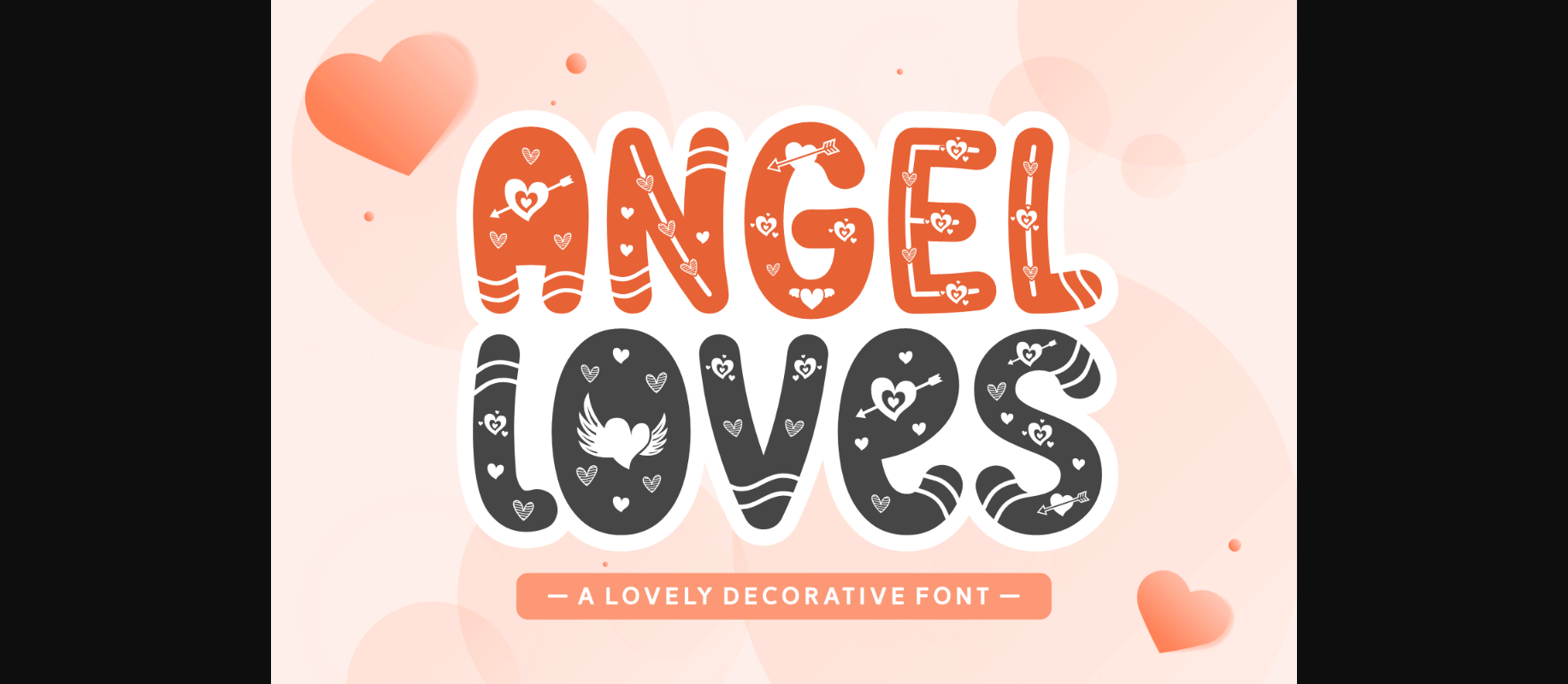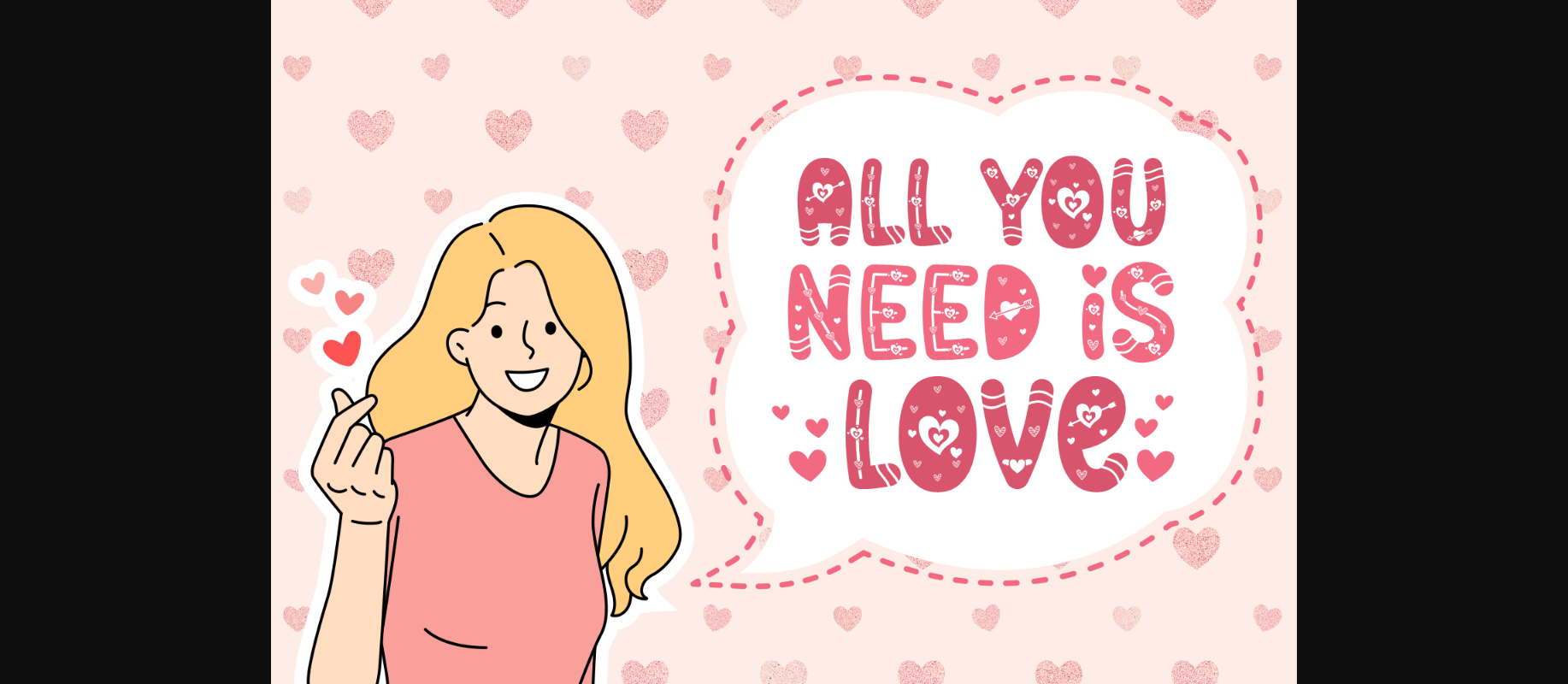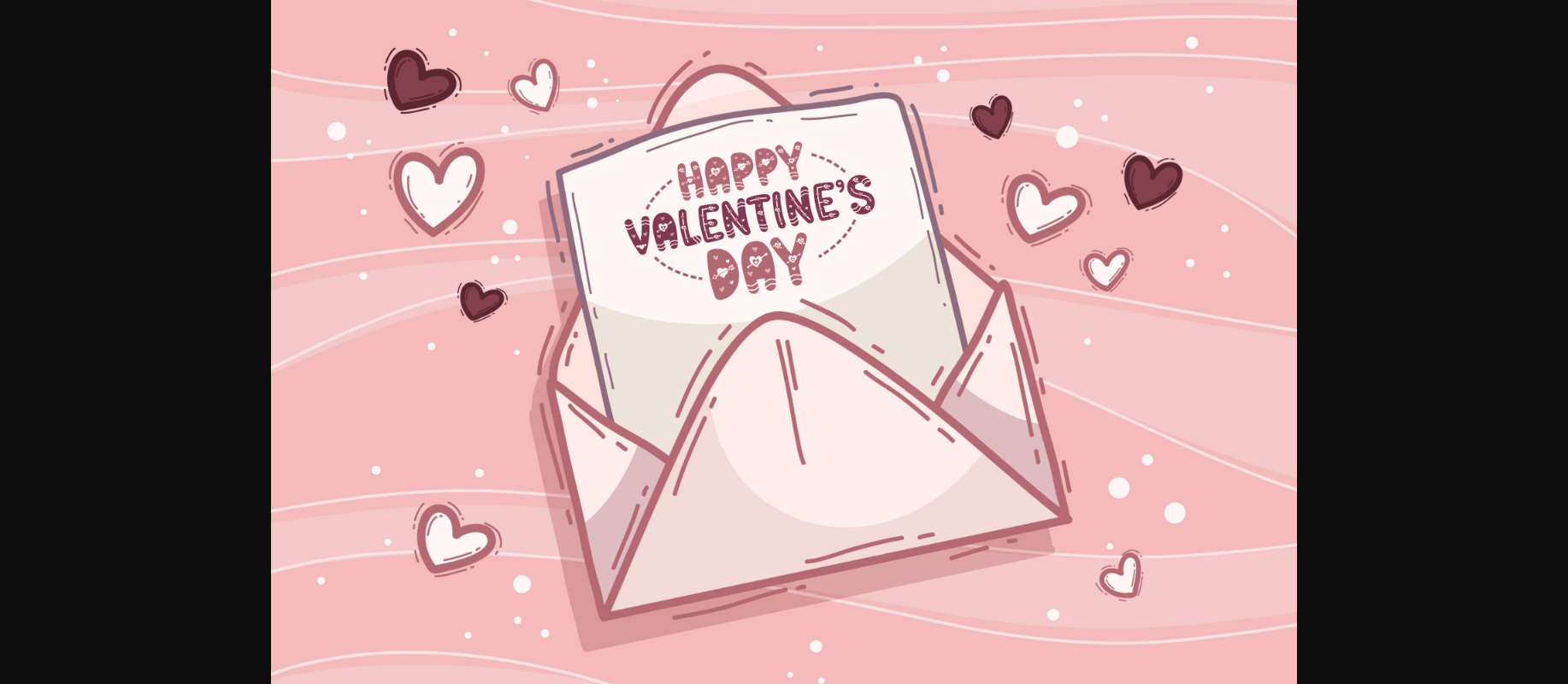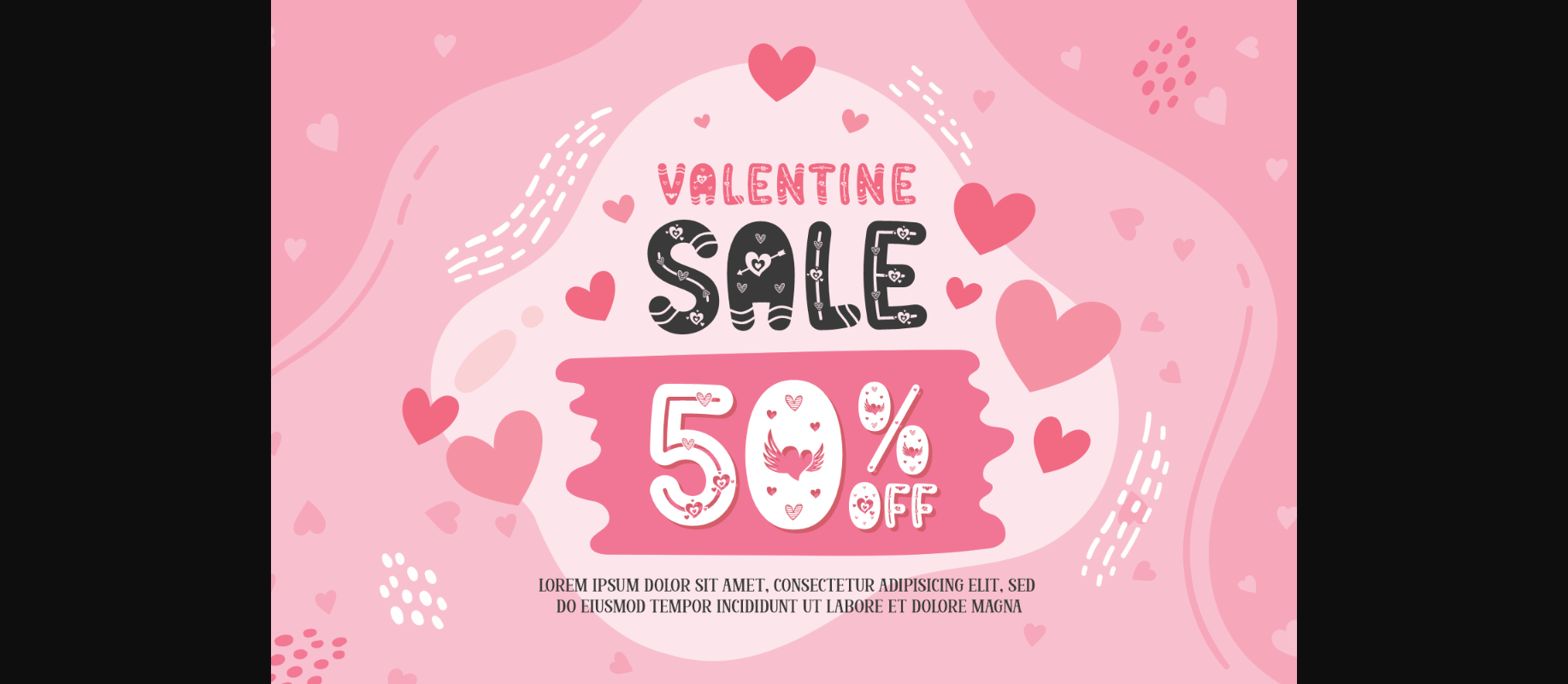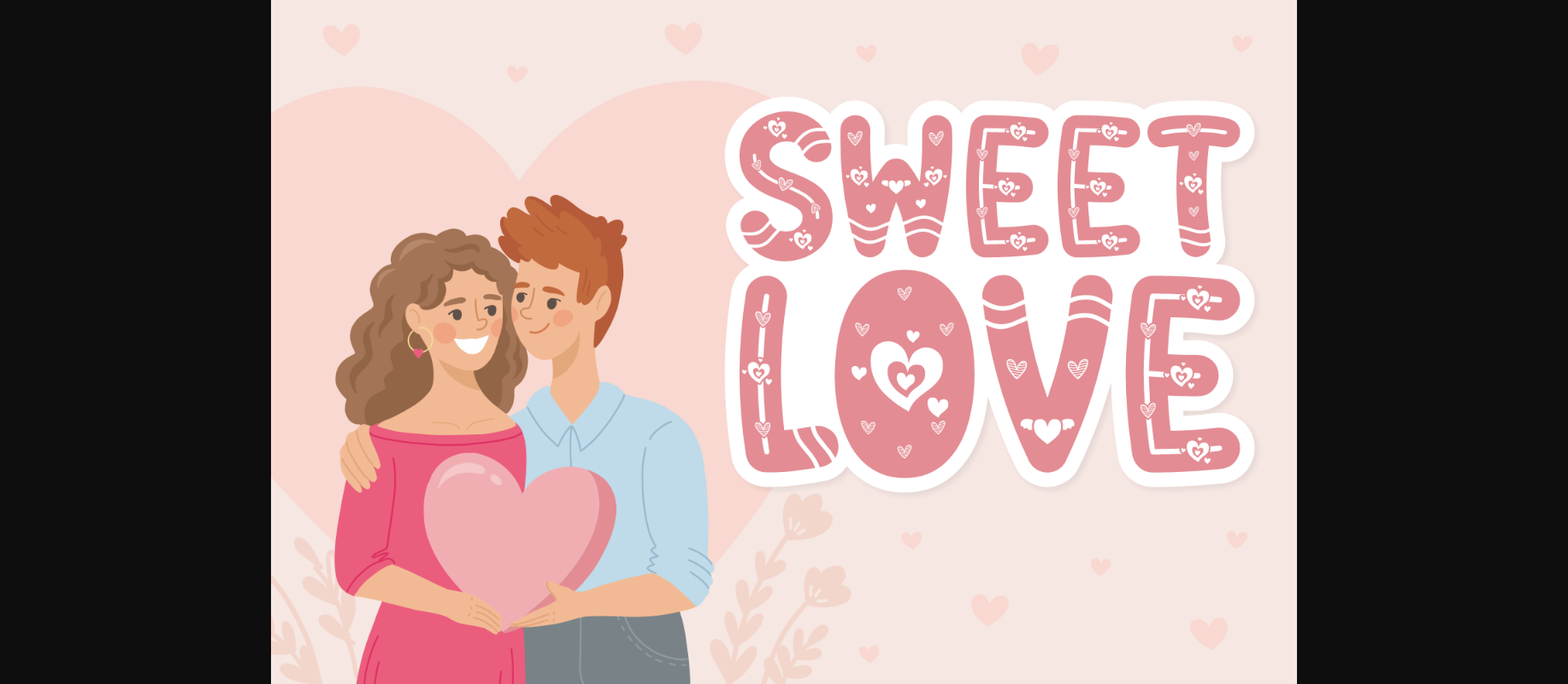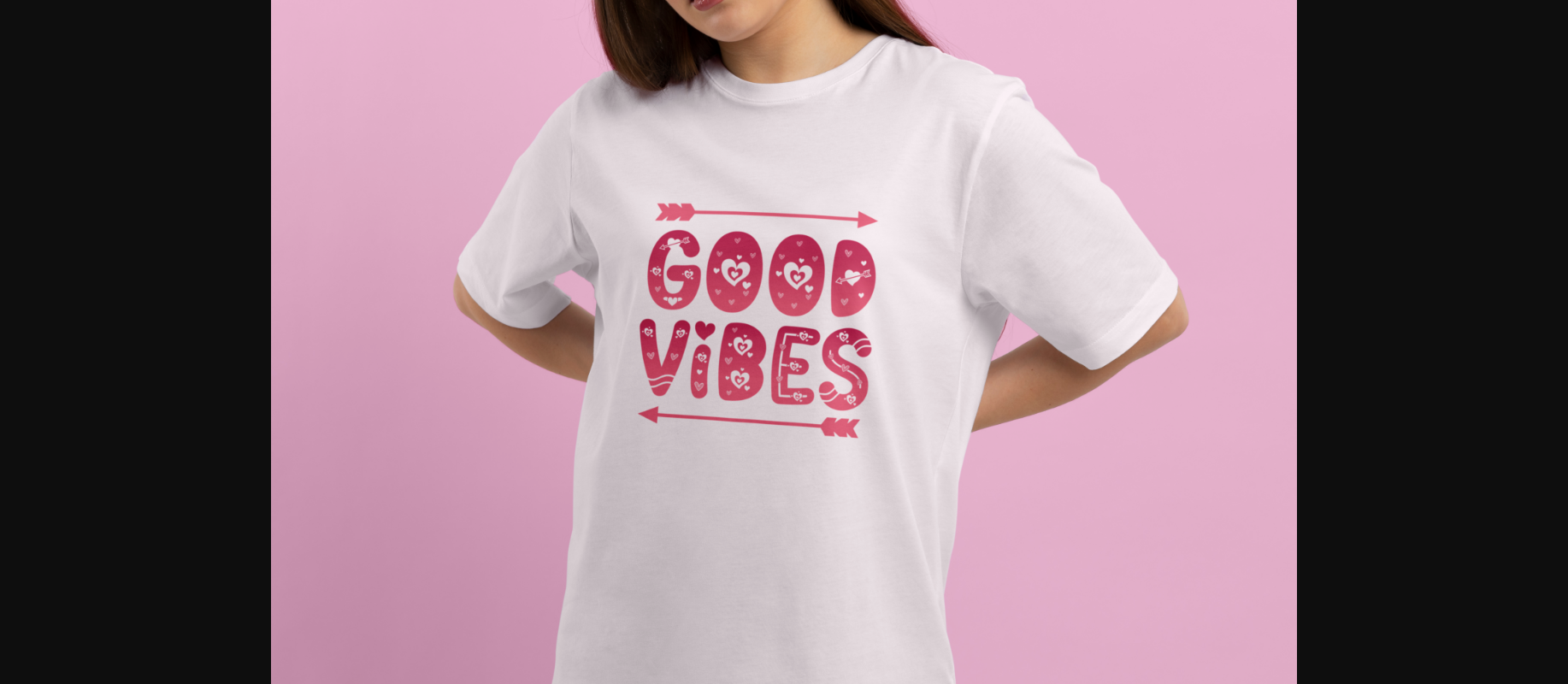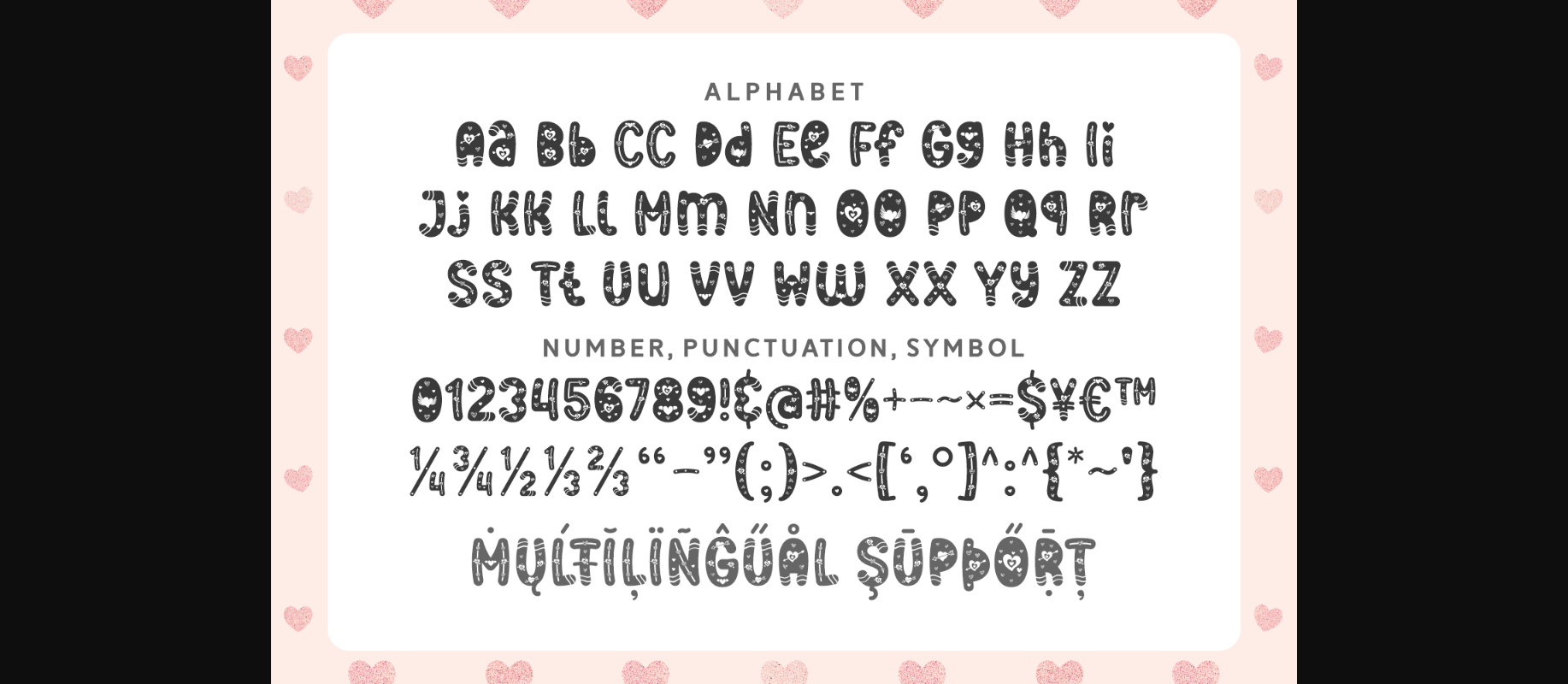
Angel Loves Font
About Angel Loves Font
Angel Loves is a fun and creative decorative font. Embellished with various heart elements, this cute typeface is ideal for romantic designs such as Valentine’s day cards, invitations, advertising materials, fabric prints, and more.